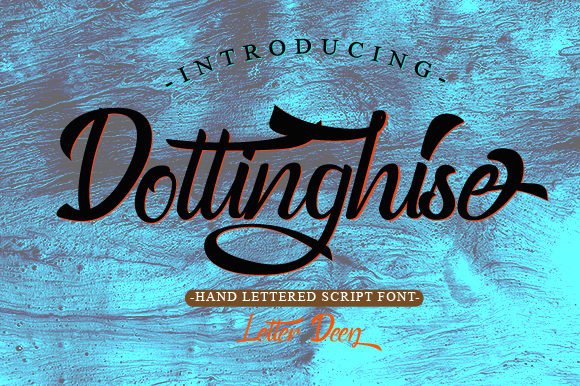
The Perfect Brush Stroke for Your Next Design Project
Introducing the Dottinghise Font, a classic and modern handwritten font designed to take your designs to the next level. With its varying baseline, smooth lines, gorgeous glyphs, and stunning alternates, this font is a game-changer. Whether you’re working on branding, headings, wedding designs, or anything in between, the Dottinghise Font is sure to impress.
- Font Family: Dottinghise
- Unique Characteristics: Unique dot-like design elements, subtle texture, and a sophisticated aesthetic that adds a touch of elegance to any text
Designer Review: Dottinghise Font
Overall, I think Dottinghise Font is a great addition to any design project, but it’s not without its limitations. ✨ Here are some things I like about it:
- The unique, playful vibe it brings to text. It’s perfect for creating a whimsical or retro feel in your designs.
- The high level of customizability. You can easily adjust the font’s style, weight, and size to fit your specific needs.
- The excellent legibility, even at small font sizes. This makes it a great choice for body text or headlines.
However, there are a few areas where Dottinghise Font falls short: ⚠️
- The font’s tendency to look slightly inconsistent at different font sizes. This can be jarring if you’re using it for a large-scale project.
Overall, I think Dottinghise Font is a solid choice for designers looking to add some personality to their work. While it has its limitations, its unique style and customizability make it a worthwhile investment for many projects. With a little tweaking and experimentation, you can unlock its full potential and create some truly eye-catching designs.
The Dottinghise Font is ideal for:
- Headings and titles in designs and presentations